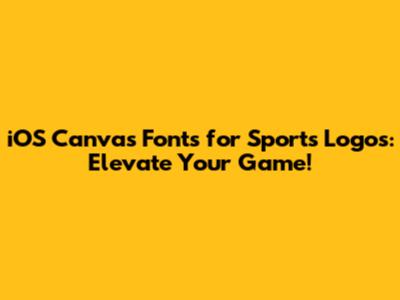
Hey, sports fans and logo designers! Ever wondered what makes a sports logo pop? A huge part of that visual punch comes down to the fonts. And when we're talking about creating those dynamic, eye-catching logos on iOS devices, specifically using tools that leverage canvas-like capabilities, the font choice is absolutely crucial. We're diving deep into the world of iOS canvas fonts for sports logos, exploring how the right typography can transform a simple design into a championship-worthy emblem. Think about your favorite teams – the bold lettering on their jerseys, the strong presence on their websites, the way their name screams power and prestige. That's the magic of a well-chosen font, and guys, it’s not just about looking cool; it’s about conveying emotion, identity, and performance. Whether you're designing for a local league, a professional team, or just building a personal sports brand, understanding how to pick and use fonts effectively on iOS can be a game-changer. We’ll break down what makes a font suitable for sports logos, what to look out for, and give you some awesome ideas to get your creative juices flowing. So grab your virtual playbook, and let’s get started on scoring some serious design points!
Why Typography Matters in Sports Logos
Alright team, let's talk strategy. Why does typography matter so much in sports logos? It’s more than just pretty letters, believe me. In the high-octane world of sports, fonts are the silent announcers, shouting out your team’s essence before anyone even reads the name. A strong, bold font can scream power, speed, and dominance – think of the iconic lettering on an NFL or NBA jersey. It immediately tells you this is a team that means business. On the flip side, a slightly more stylized or classic font might evoke tradition, heritage, and a sense of enduring legacy, perfect for a historic university sports program. When you’re designing a logo, especially on a platform like iOS where visuals are king and often viewed on smaller screens, the font needs to be instantly legible and impactful. iOS canvas fonts for sports logos need to be robust enough to handle various applications – from tiny app icons to large banners. They need to communicate the spirit of the sport. Is it aggressive and fast-paced like hockey or football? Or is it graceful and precise like tennis or gymnastics? The wrong font can make a fierce team look weak, or a dignified club seem amateurish. It’s about building brand identity, fostering a sense of belonging for fans, and creating a visual shorthand that resonates with the energy of the game itself. Plus, let's be real, a killer logo with awesome typography just looks good. It builds credibility and makes your brand memorable. So, when you're picking fonts for your next sports logo project on your iPad or iPhone, remember that you're not just choosing letters; you're choosing personality, attitude, and performance.
Choosing the Right Fonts for Sports Logos
So, how do we actually pick the right fonts for sports logos? This is where the rubber meets the road, guys. When you're working with iOS canvas fonts, you've got a lot of power at your fingertips, but it also means you need to be smart about your choices. First off, think about the vibe of the sport and the team. Is it aggressive and high-energy? You'll want something bold, possibly with sharp edges or a strong, athletic stance. Think blocky serifs or powerful sans-serifs. If it's a more traditional or classic sport, maybe something with a bit more personality, perhaps a stylized serif or a clean, strong sans-serif that feels established. Legibility is king, though. Seriously, no matter how cool a font looks, if people can't read it easily on a jersey, a website, or an app icon, it’s a fail. Especially on mobile screens, intricate details can get lost. Look for fonts with clear letterforms and good spacing. Contrast is another big one. Does the font have enough weight and distinction to stand out against potentially busy backgrounds or other design elements? You want it to grab attention, not blend in. Consider the personality you want to convey. Do you want to feel powerful, fast, elegant, or traditional? The font is your main tool for this. Don’t be afraid to explore different font categories. Sans-serifs are often a go-to for modern, athletic looks due to their clean lines. Serifs can add a touch of class and tradition. Sometimes, even a slab serif can give a really strong, impactful feel. When you’re browsing fonts on your iOS device for your canvas projects, pay attention to things like x-height (the height of lowercase letters), ascenders and descenders (parts of letters that go above or below the main line), and the overall width of the characters. These details can significantly impact how the font looks and reads at different sizes. Experiment! Try pairing different fonts, maybe a bold display font for the main team name with a simpler, more readable font for a tagline or secondary text. The goal is to create a visual identity that is instantly recognizable, memorable, and perfectly suited to the spirit of the sport.
Exploring iOS Canvas Font Options for Sports
Now, let's get specific. What kind of iOS canvas fonts are actually out there that are perfect for sports logos? Guys, the iOS ecosystem has some gems, and you can find them through various apps and font management tools. When we talk about